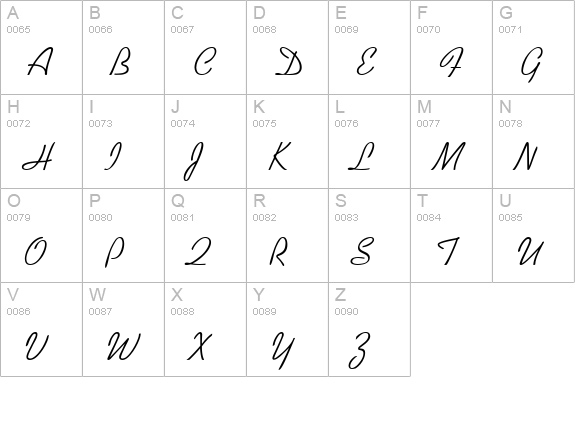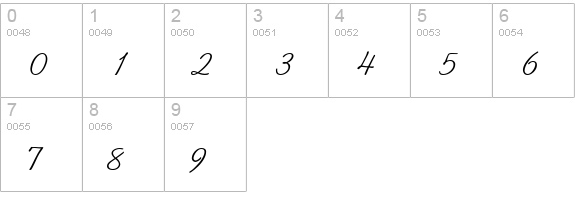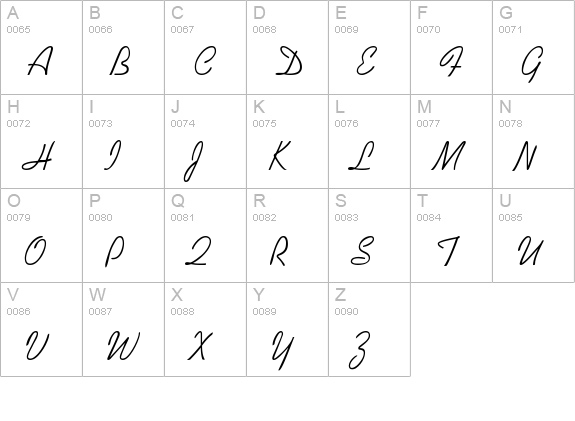
Swenson Font Details
Swenson font is a stylish and versatile typeface that exudes elegance and sophistication. With its unique blend of modern and classic design elements, Swenson is perfect for a wide range of design projects, from branding to editorial work. Its sleek lines and balanced proportions make it a timeless choice for any creative endeavor. What sets Swenson font apart is not only its visual appeal but also its accessibility. Unlike many other premium fonts, Swenson is available for free download at FontsMarket.com. This means that you can easily incorporate this high-quality font into your projects without breaking the bank. Whether you're working on a logo, website, or print materials, Swenson font will elevate your design and help you stand out from the crowd. Don't miss out on the opportunity to add this stunning font to your collection – download Swenson for free today at FontsMarket.com!